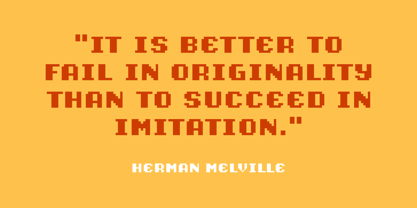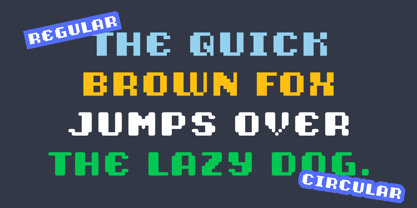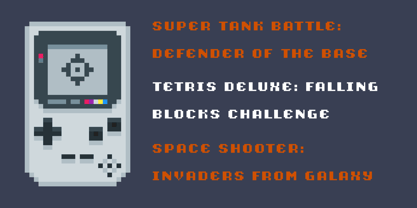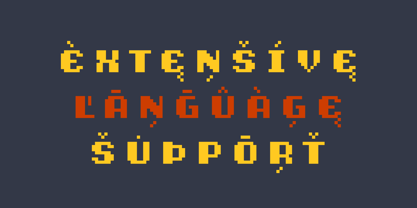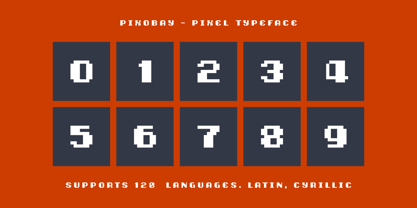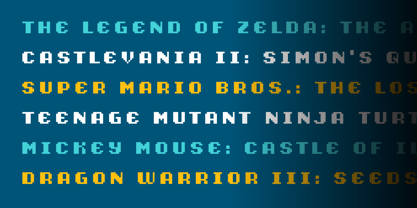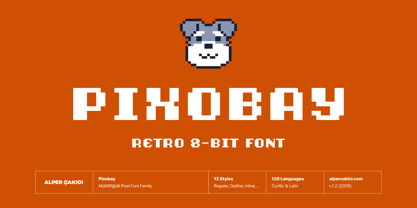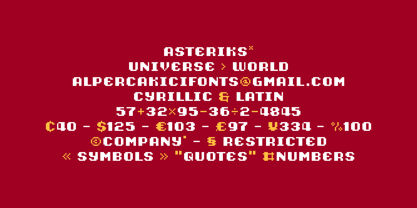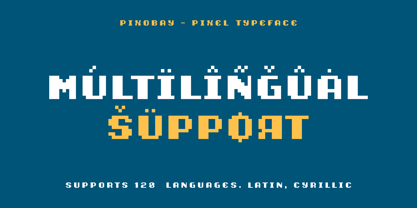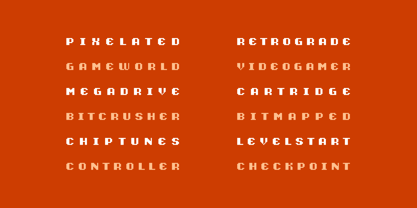
Pixobay
by AlperCakici
The Pixobay Font Family was designed by Alper Çakıcı and published by AlperCakici. Pixobay contains 12 styles and family package options. More about this family
Pixobay is a bold, high-impact pixel typeface inspired by classic arcade screens, retro gaming culture, and early computer graphics. Built on a precise modular grid, it combines sharp geometry, balanced spacing, and unmistakable pixel character, making it versatile for contemporary design projects. From crisp arcade aesthetics to softer circular and rounded pixel forms, Pixobay offers a wide stylistic range while maintaining a cohesive digital identity across the entire family. Its strong visual presence makes it ideal for video game titles, esports branding, posters, album covers, packaging, user interfaces, social media graphics, streaming content, and any project that embraces retro-futuristic design. Family Styles (12): • Pixobay Regular • Pixobay Outline • Pixobay Inline • Pixobay Shadow • Pixobay Circular • Pixobay Circular Outline • Pixobay Circular Inline • Pixobay Circular Shadow • Pixobay Rounded • Pixobay Rounded Outline • Pixobay Rounded Inline • Pixobay Rounded Shadow Pixobay supports an extensive character set covering 205 languages across Latin and Cyrillic scripts, making it suitable for international branding, multilingual publishing, and global creative projects. Whether you're creating a nostalgic gaming aesthetic, developing a modern pixel-inspired brand identity, or designing eye-catching digital content, Pixobay delivers authentic pixel personality with clarity, flexibility, and impact.
Designers: Alper Çakıcı
Foundry: AlperCakici